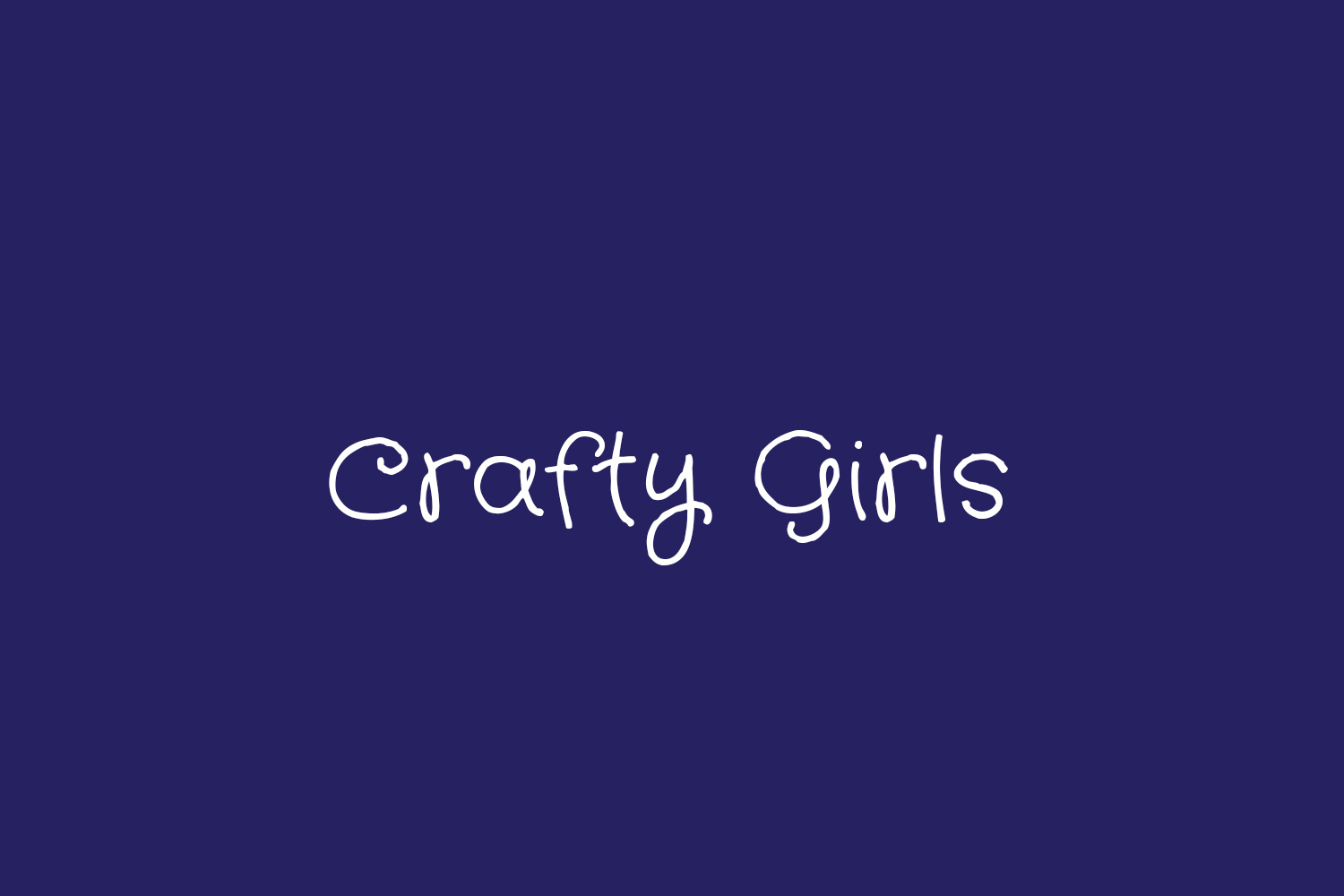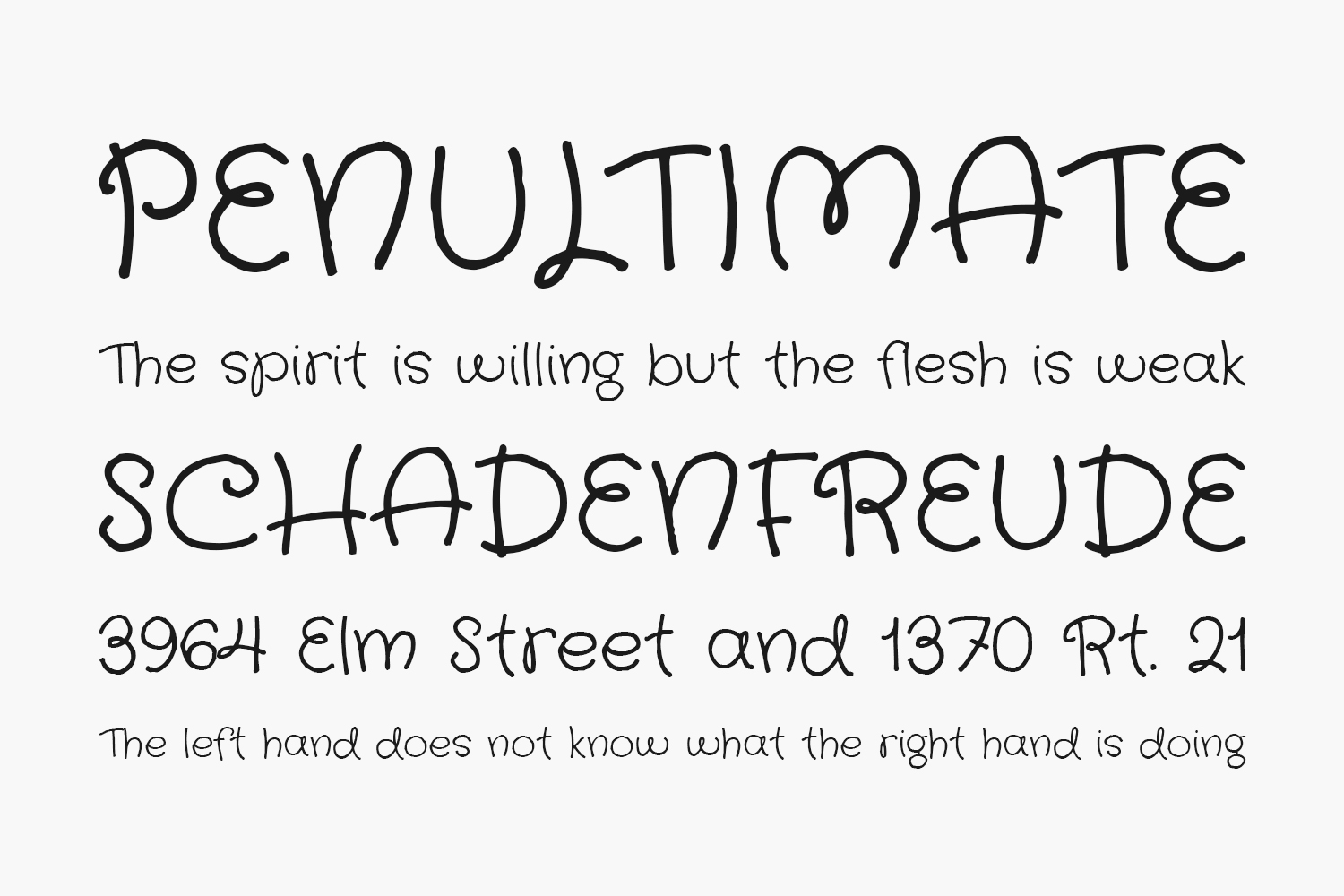
Crafty Girls Free Font is inspired by crochet hooks, yarn, button boxes, thread, and glitter. This delightfully playful casual handwriting script font was hand drawn by Crystal Kluge and makes the perfect compliment to all your projects. Use it in your very best creative projects, then blog about them in the same font.
Designed by Tart Workshop